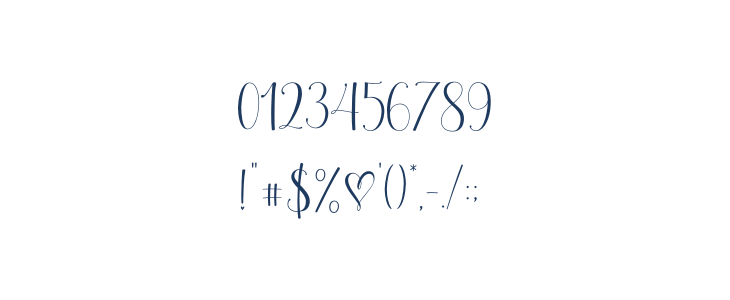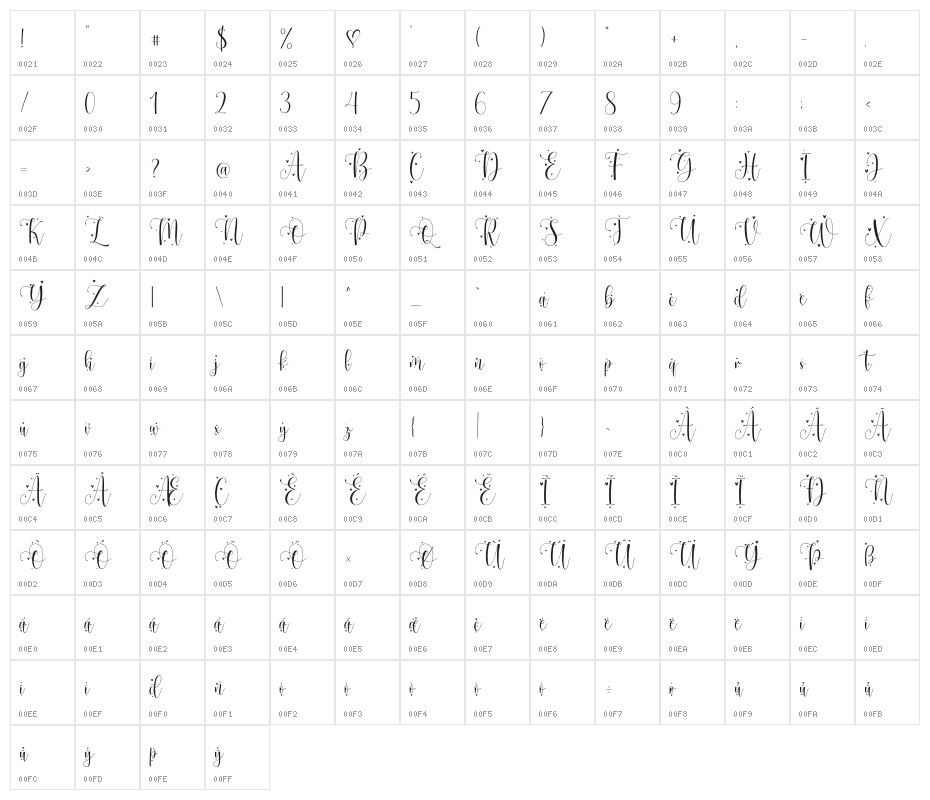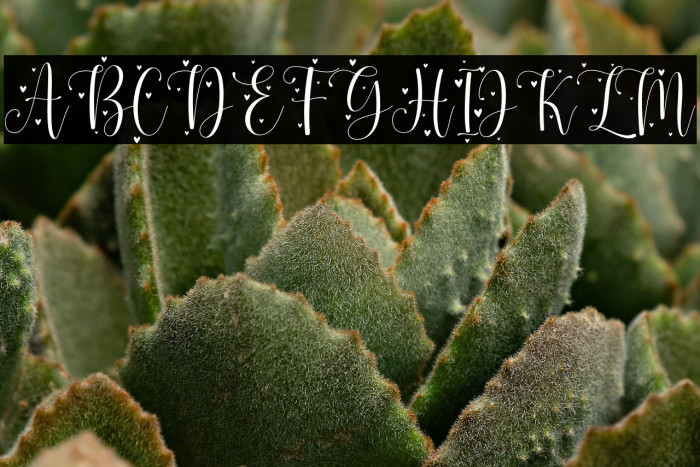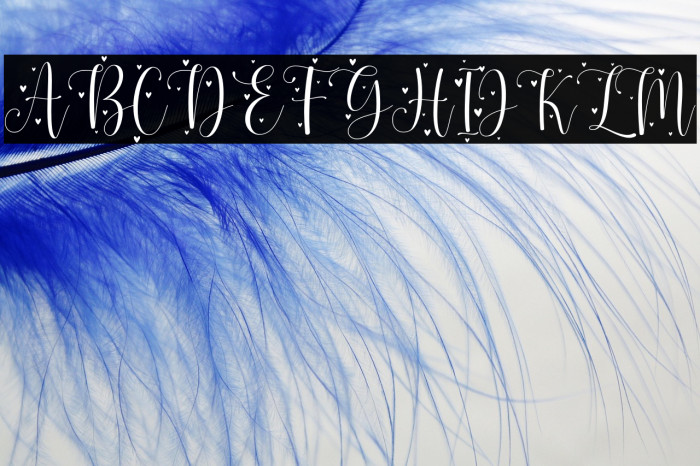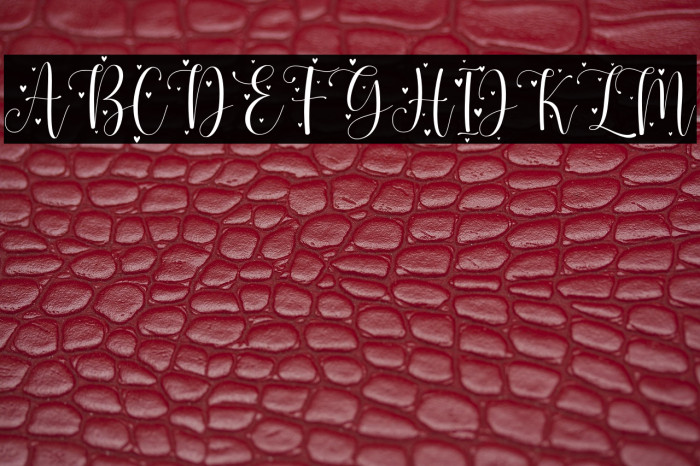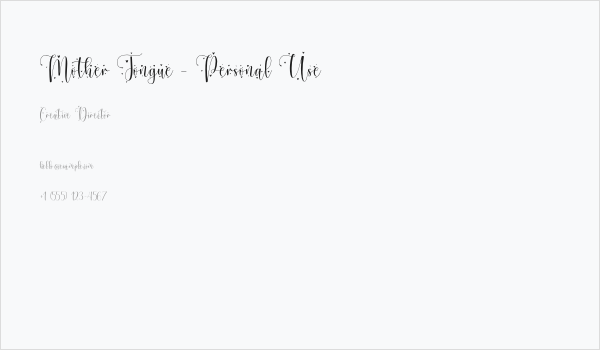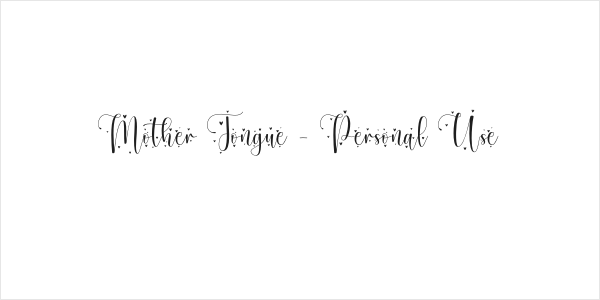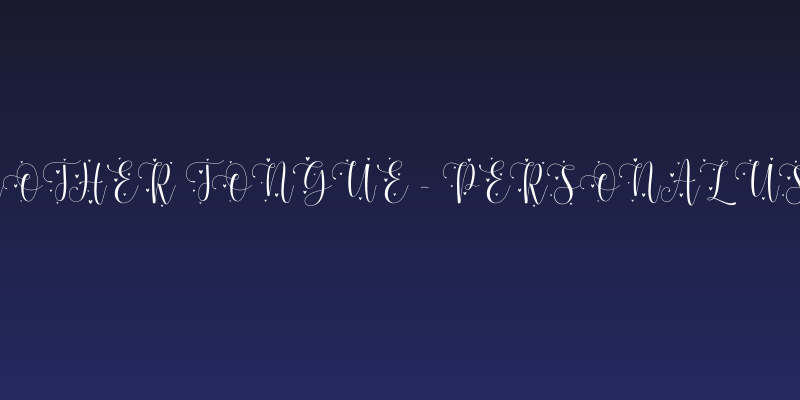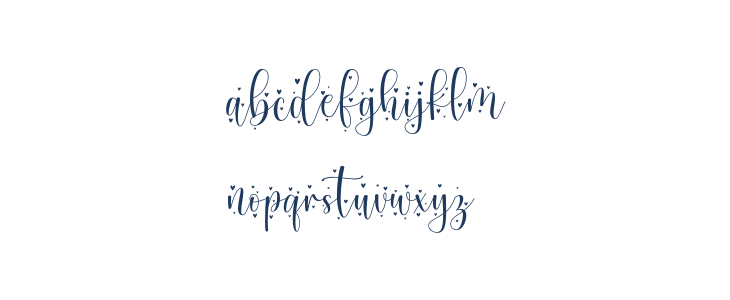
Mother Tongue - Personal Use Font
Mother Tongue - Personal Use Description
This font features an elegant and whimsical script style with a playful touch. Each letter is adorned with small heart motifs, adding a romantic and charming flair. The uppercase letters are tall and graceful, while the lowercase letters maintain a consistent flow with delicate curves. The numerals are stylish and maintain the overall aesthetic of the font. Special characters are creatively integrated, enhancing the decorative nature of the design. The font's strokes vary in thickness, providing a medium contrast that adds to its visual appeal. Ideal for projects that require a touch of elegance and creativity.